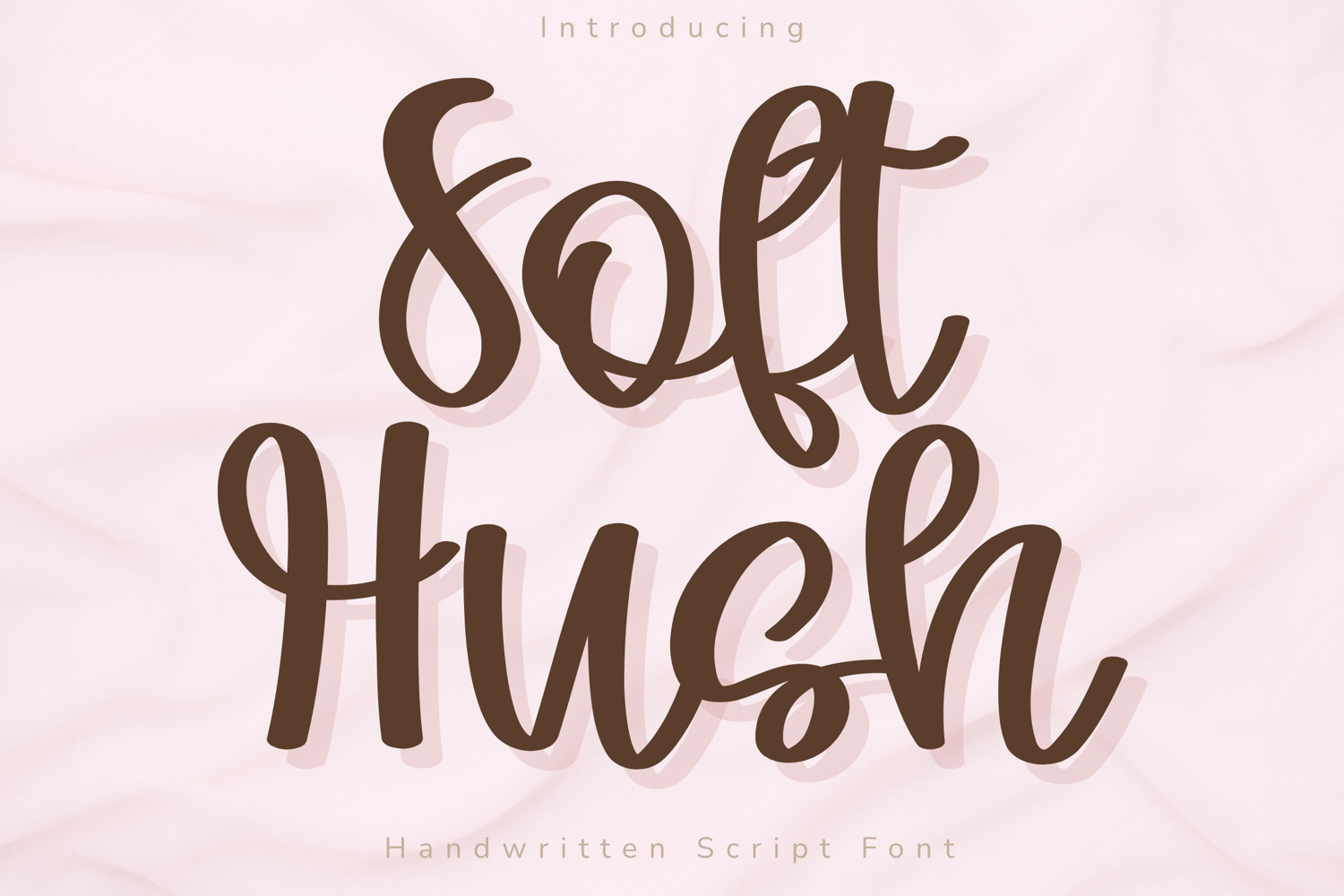
Soft Hush - Handwritten Script Font
Soft Hush – Handwritten Script Font
Soft Hush is a smooth and elegant handwritten script font designed with a calm, feminine, and modern aesthetic. Featuring flowing curves, soft rounded strokes, and a gentle handwritten movement, this font creates a warm and stylish look that feels both playful and sophisticated.
Its balanced handwritten style makes it perfect for branding, social media graphics, Cricut projects, planner covers, stickers, packaging, and creative logo designs. Soft Hush is easy to read while still bringing personality and charm to every project.
Uppercase & lowercase letters
Smooth handwritten script style
Rounded and flowing strokes
Numbers, punctuation & symbols
Feminine branding
Cricut & craft projects
Planner & journal designs
Stickers & packaging
Social media graphics
Logo & Branding
Soft Hush is designed to create a soft, cozy, and stylish handwritten vibe that works beautifully for both everyday and premium creative projects.